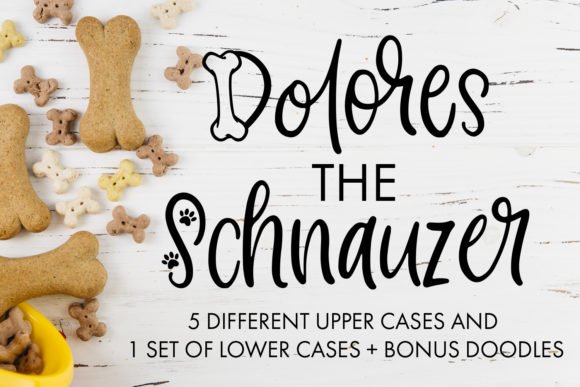
Meet Your New BFF: Dolores the Schnauzer Font
Enter Dolores the Schnauzer Font, a charming display font that’s sure to steal your heart. This adorable font is designed to evoke a sense of friendliness and approachability, making it perfect for Instagram captions, calligraphy scripts, and any other creative project that needs a touch of warmth. As a designer, you’ll appreciate the versatility and playfulness of Dolores the Schnauzer Font, which is sure to add a unique touch to your designs.
- Size: 8,000+ glyphs, 8,500+ characters
- Resolution: High-resolution font with crisp, clear lines and detailed illustrations
- Unique Characteristics: Includes a wide range of animal illustrations, including dogs, cats, and other pets, making it perfect for pet-related designs and branding
- Language Support: Supports over 150 languages, including Latin, Cyrillic, Greek, and more
- Font Weight and Style: Available in multiple weights, including Light, Regular, Bold, and Italic, to suit various design needs
Dolores the Schnauzer Font Review
I was excited to dive into Dolores the Schnauzer Font, and overall, I think it’s a lovely addition to any designer’s toolkit. ✨ The font’s playfulness is infectious, and I can see it working well in a variety of contexts – from children’s books to quirky advertisements.
The designer has clearly put thought into creating a cohesive look and feel, with Dolores’ rounded edges and expressive personality shining through. ✨ The font’s flexibility in terms of weights and styles is also a major plus, making it easy to use in different scenarios.
- Playful, expressive design
- Flexibility in terms of weights and styles
- Cohesive look and feel
- ⚠️ Limited support for non-Latin scripts, which might be a concern for designers working on global projects
- ⚠️ Some glyphs may require manual adjustment to achieve the desired look, which can be time-consuming
Overall, I think Dolores the Schnauzer Font is a fun and versatile choice for designers. While it may have some limitations, its unique personality and flexibility make it a great addition to any project.
The Dolores the Schnauzer Font is ideal for:
- Typography projects that require a unique, playful touch.
- Designs that need to evoke a sense of whimsy and charm.
- Branding and marketing materials that require a distinctive visual identity.
Alternatives to Dolores the Schnauzer Font
Bonbon Script
Bonbon Script is a beautiful, elegant script font ideal for creating whimsical and feminine designs. It features flowing lines, swashes, and a touch of playfulness, making it perfect for wedding invitations, branding, and packaging.
Compared to Dolores the Schnauzer Font, Bonbon Script has a more refined and sophisticated look, while Dolores the Schnauzer Font has a more rustic and vintage feel.
Great Vibes is a modern, handwritten font with a relaxed and casual feel. It’s perfect for creating a friendly and approachable tone in designs, making it great for social media, advertising, and streetwear branding.
Unlike Dolores the Schnauzer Font, Great Vibes has a more modern and edgy look, while Dolores the Schnauzer Font has a more classic and vintage feel.
Carolyna Pro is a luxurious, elegant script font with a touch of sophistication. It’s perfect for creating high-end designs, such as luxury branding, fine dining menus, and premium packaging.
Compared to Dolores the Schnauzer Font, Carolyna Pro has a more refined and polished look, while Dolores the Schnauzer Font has a more rustic and vintage feel.